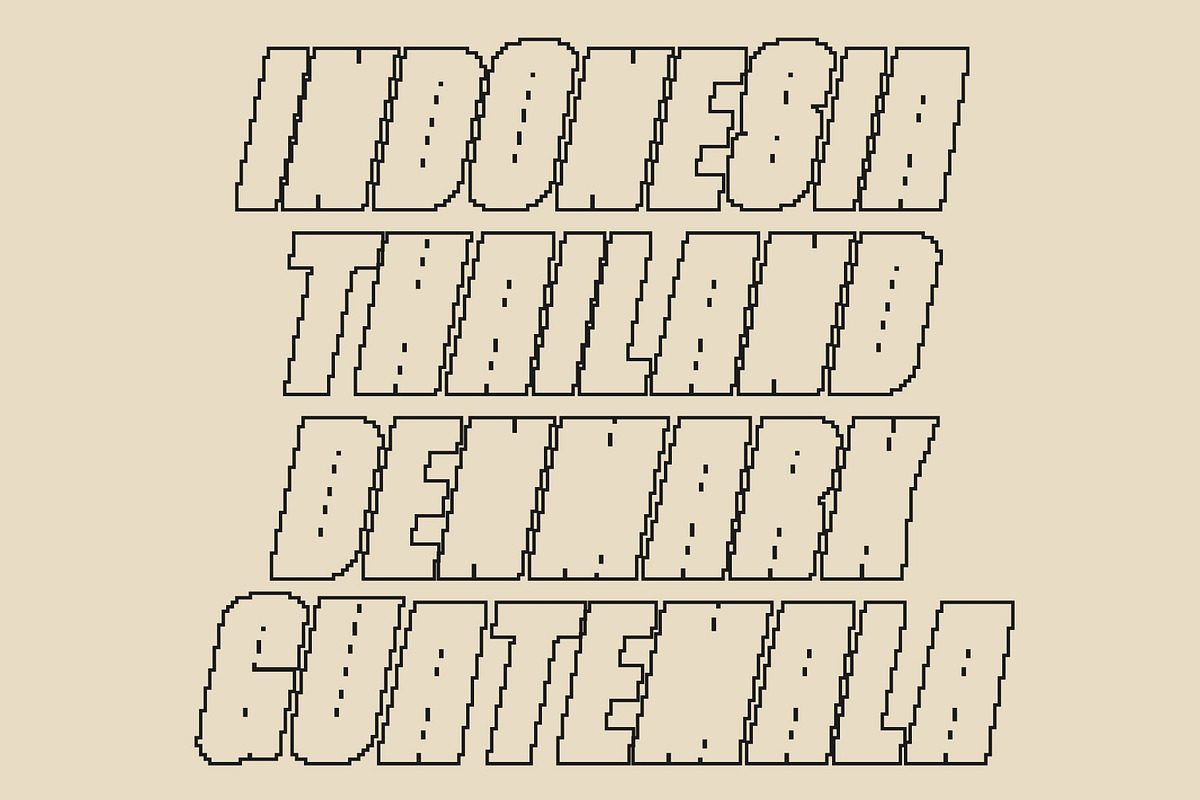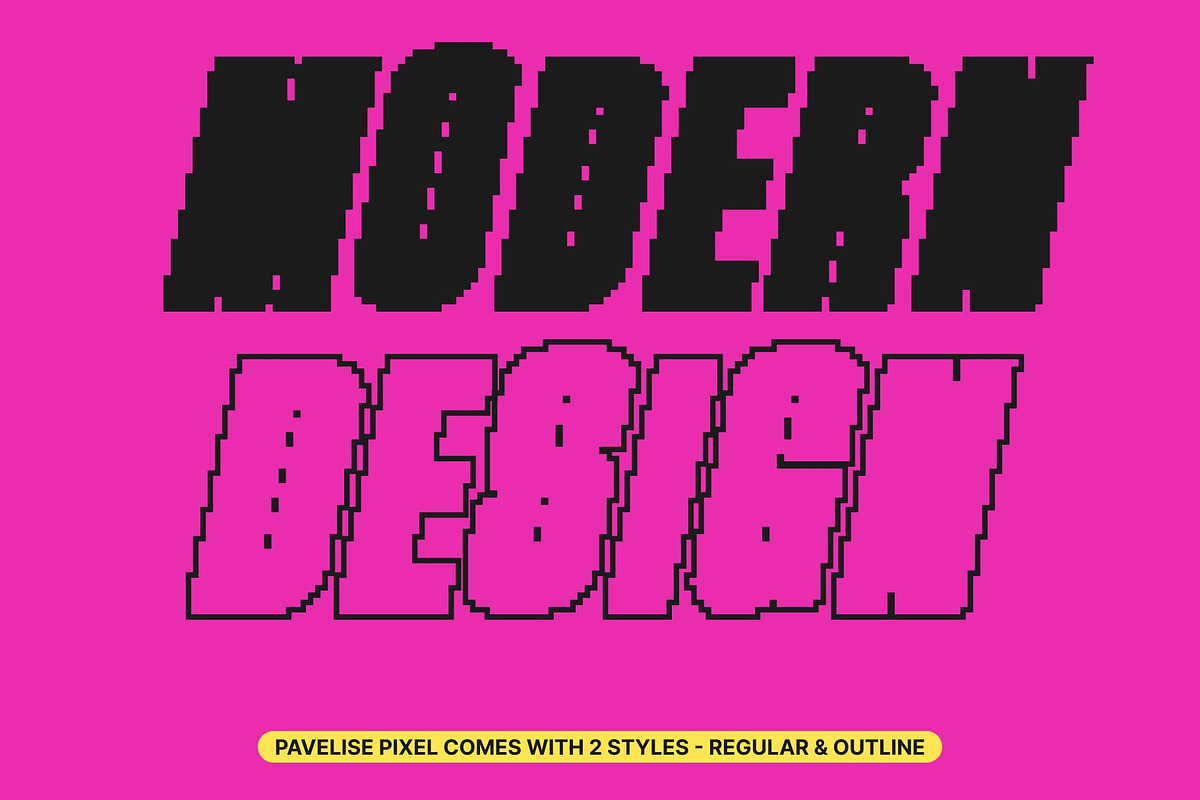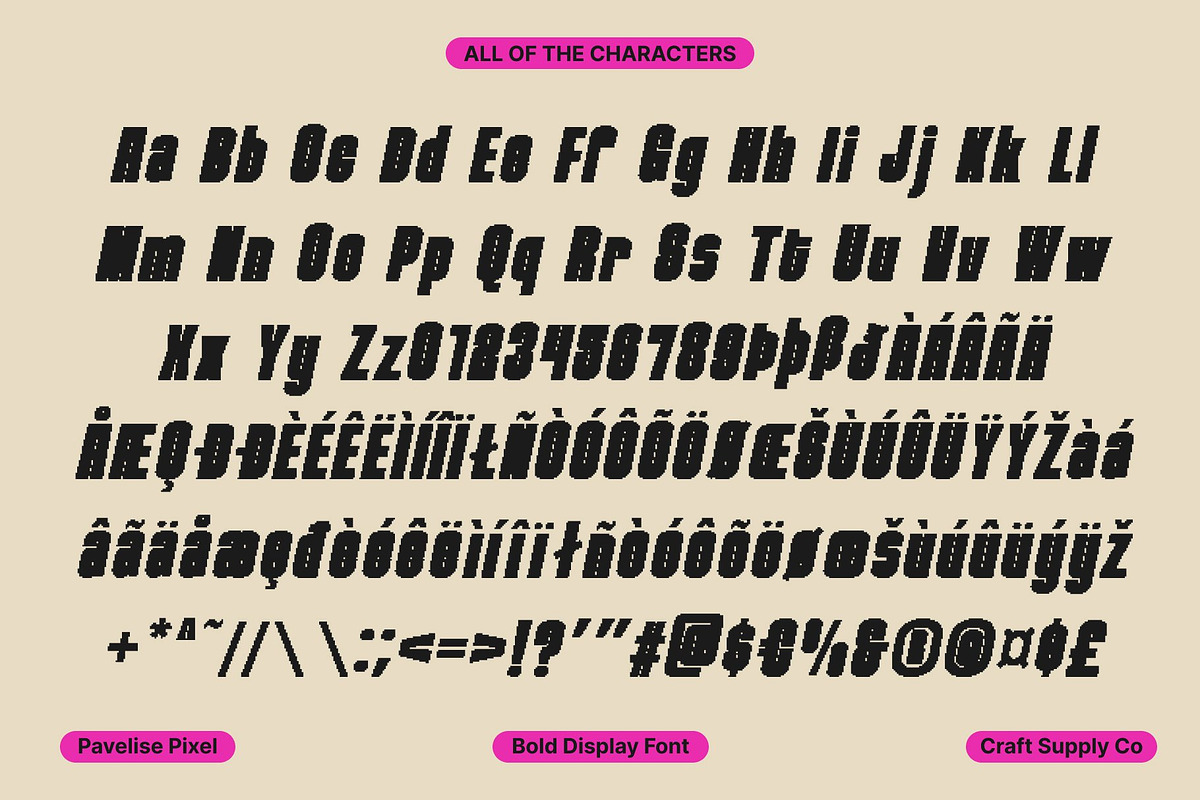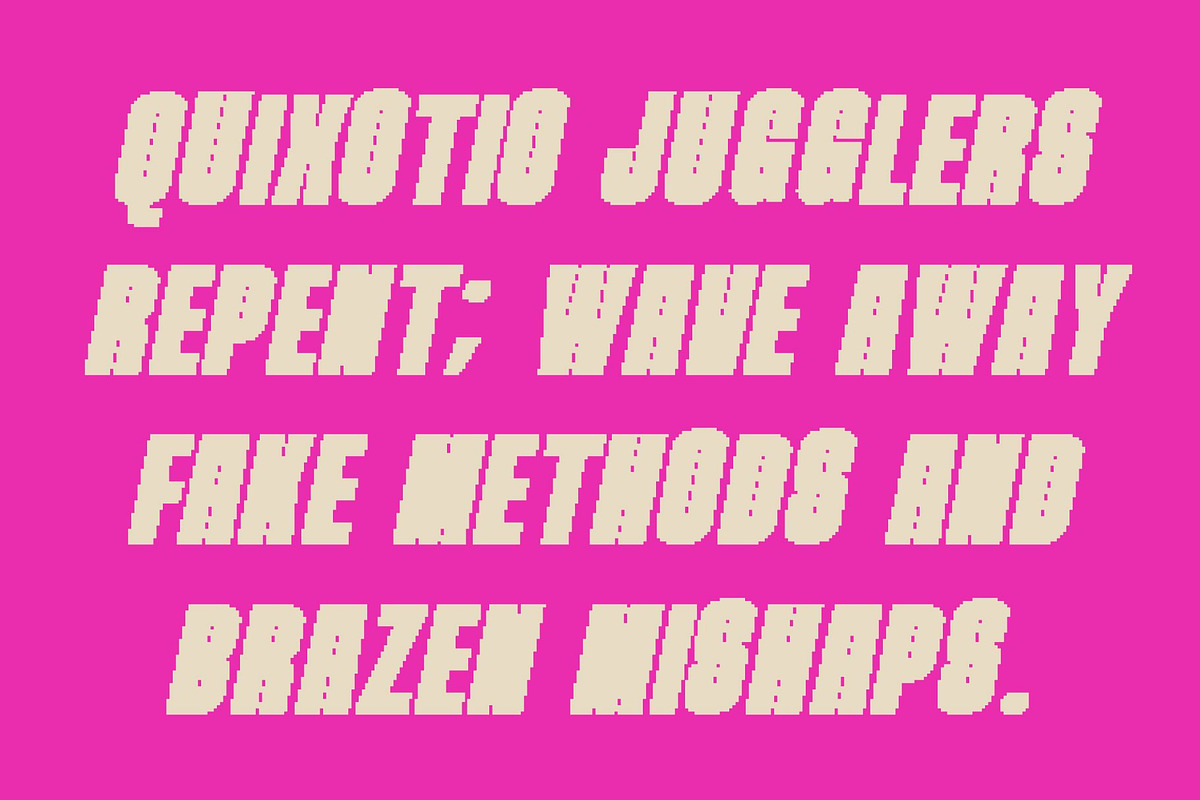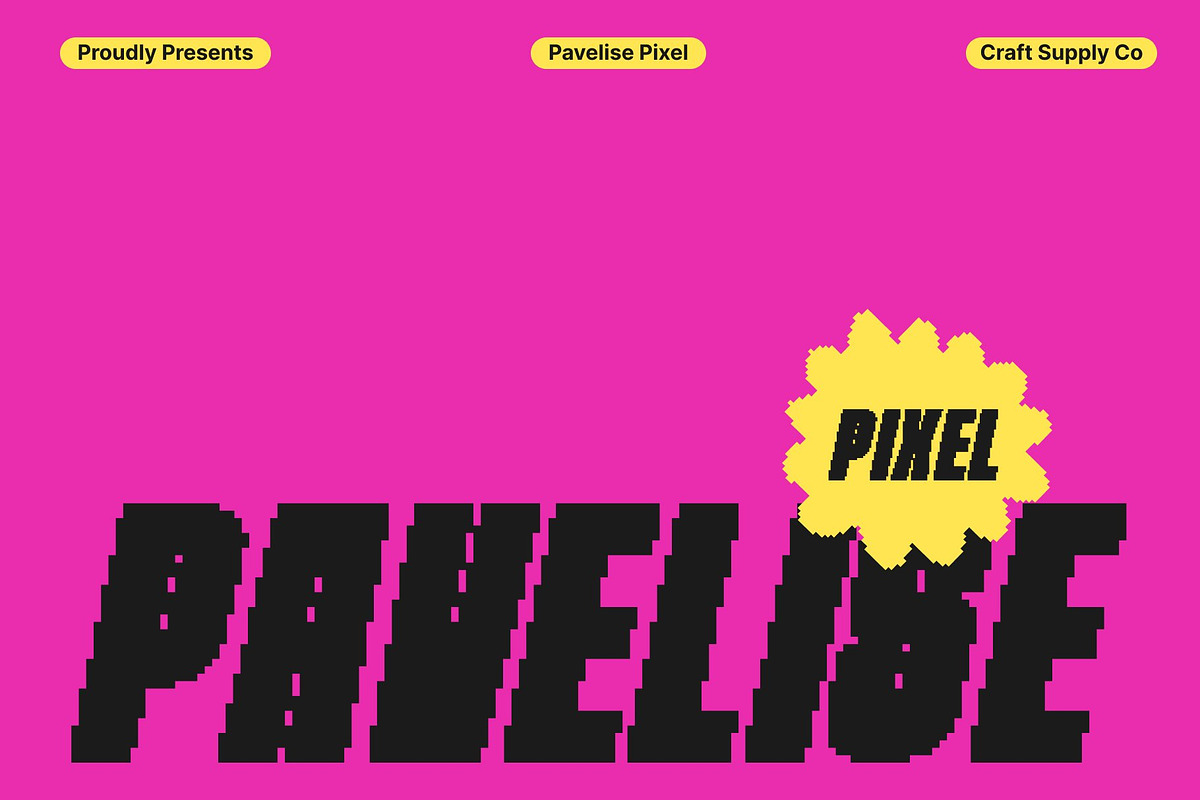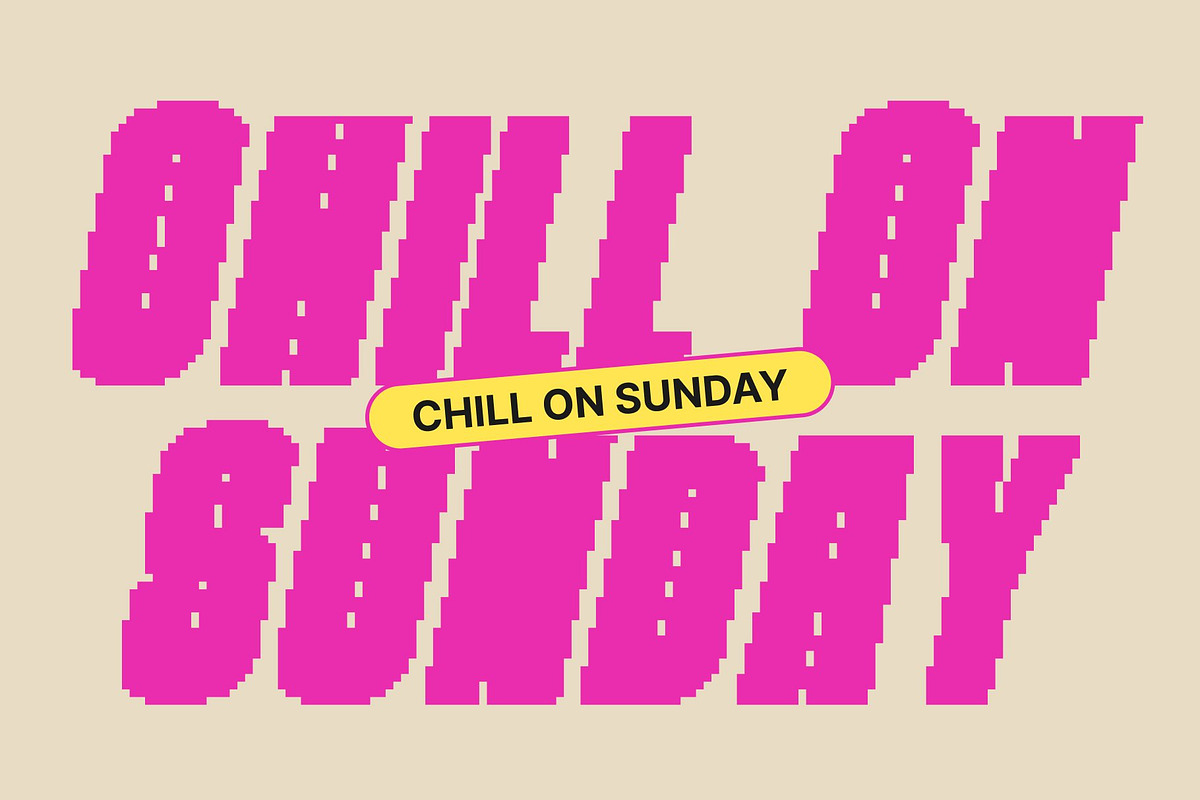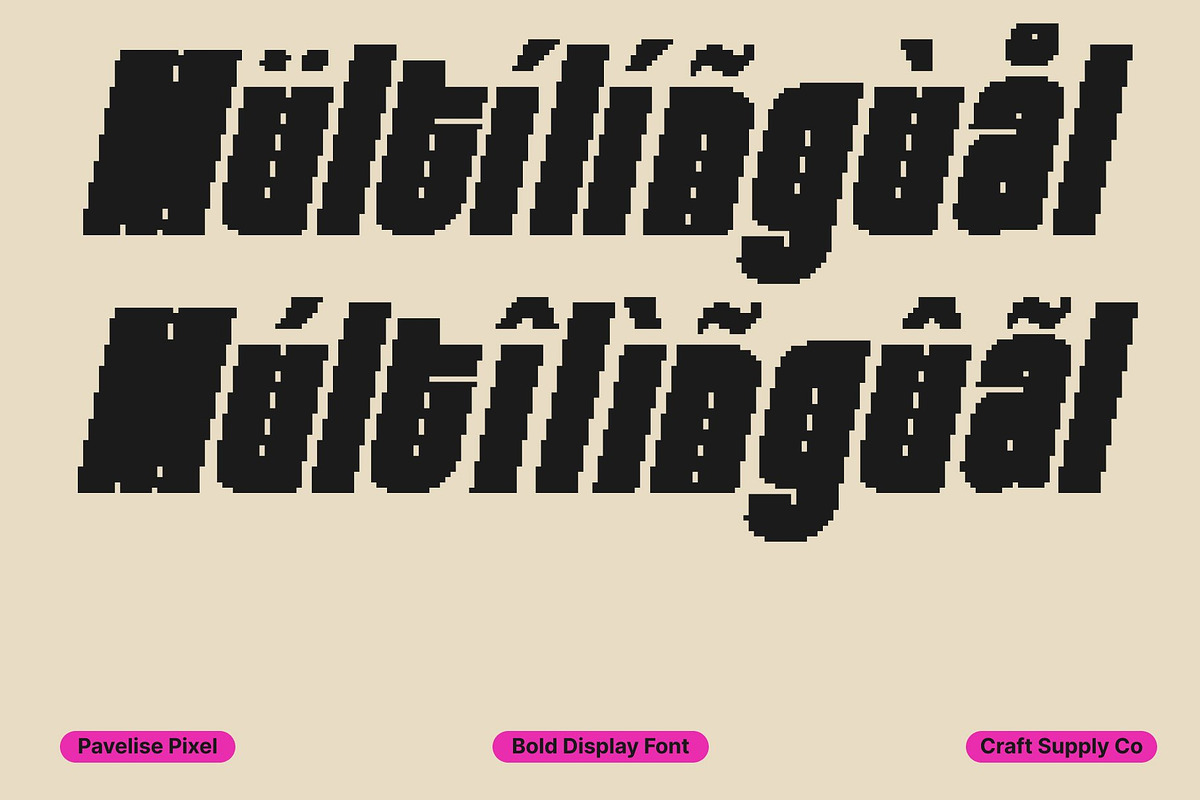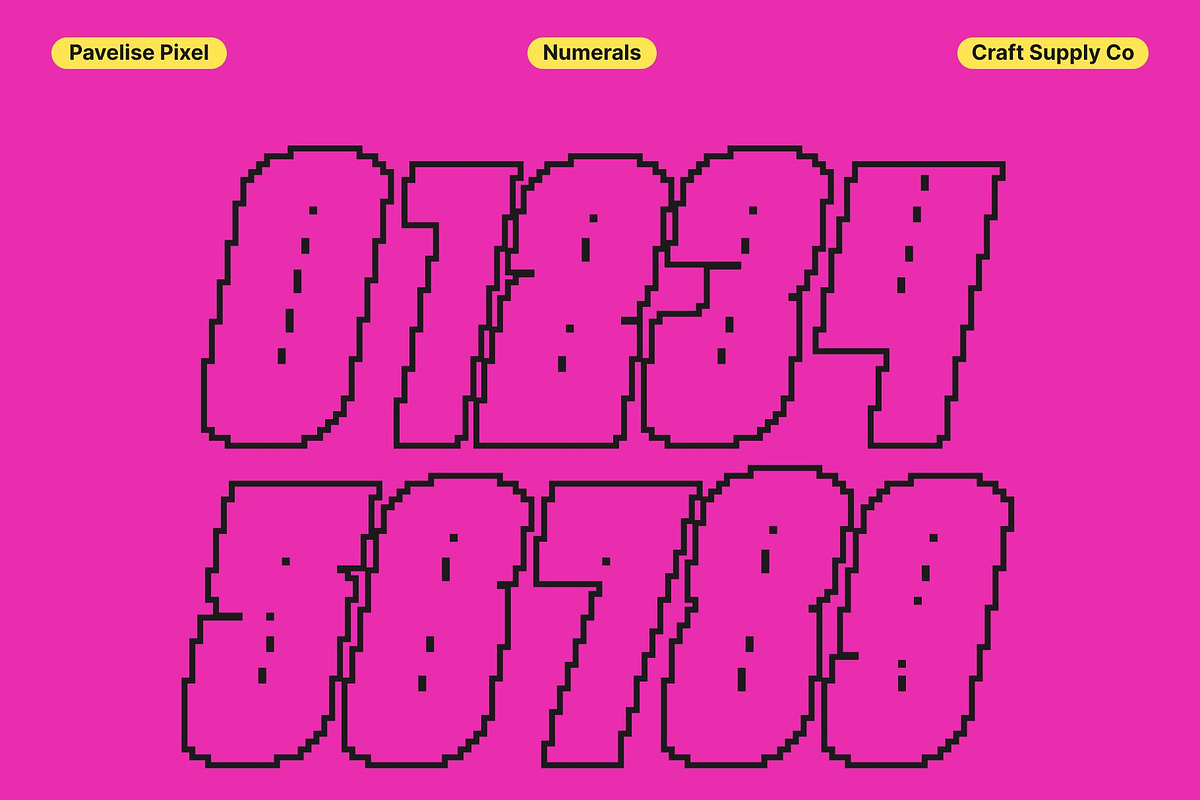
Pavelise Pixel
Pavelise Pixel – Bold Condensed Sans Serif with Industrial Pixel Precision
A Strong, Industrial Typeface Built for Bold Impressions This is a powerful sans serif font featuring a condensed and bold structure designed to command attention. With its industrial-inspired forms and solid construction, this typeface delivers a strong, masculine, and technical presence that instantly elevates any layout.
Condensed and Bold for Maximum Impact in Limited Space The condensed design of this font allows you to create impactful compositions even in tight spaces. Each character stands tall and firm, projecting strength while maintaining excellent readability. Its density and boldness work together harmoniously, making it ideal for display purposes that require both intensity and clarity—perfect for banners, titles, or modern promotional visuals.
Pixel Style That Enhances Its Geometric and Digital Identity What sets this font apart is its distinctive pixel styling. The pixel effect adds blocky precision and geometric depth, giving every character a modern digital appearance. This unique texture enhances its industrial personality, creating a fusion of mechanical strength and digital artistry.
Perfect for Posters, Branding, Headlines, and Creative Projects This font is crafted for designers who want to make a bold visual statement. Its industrial build, condensed width, and pixel geometry make it ideal for posters, impactful headlines, branding elements, or creative digital projects.